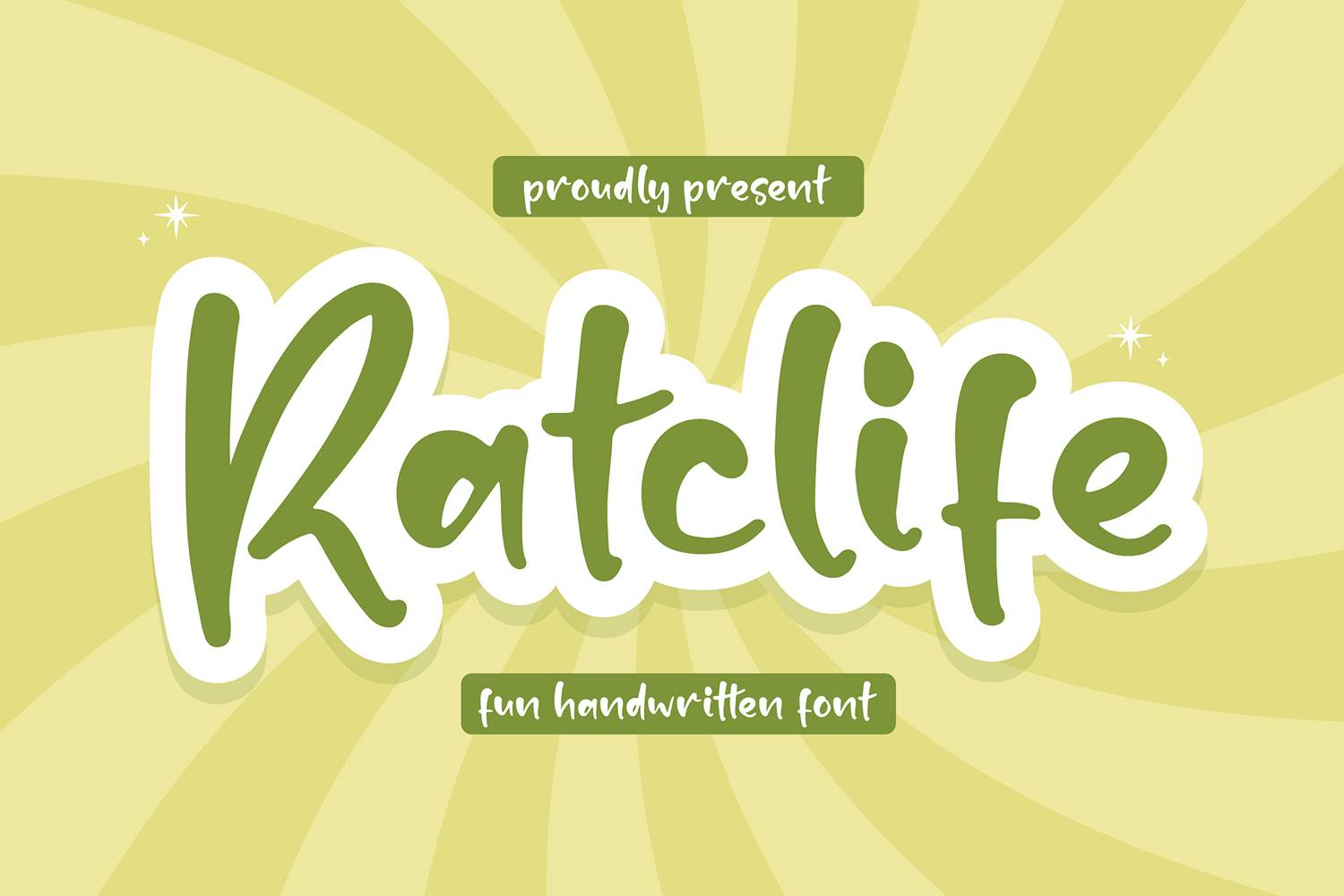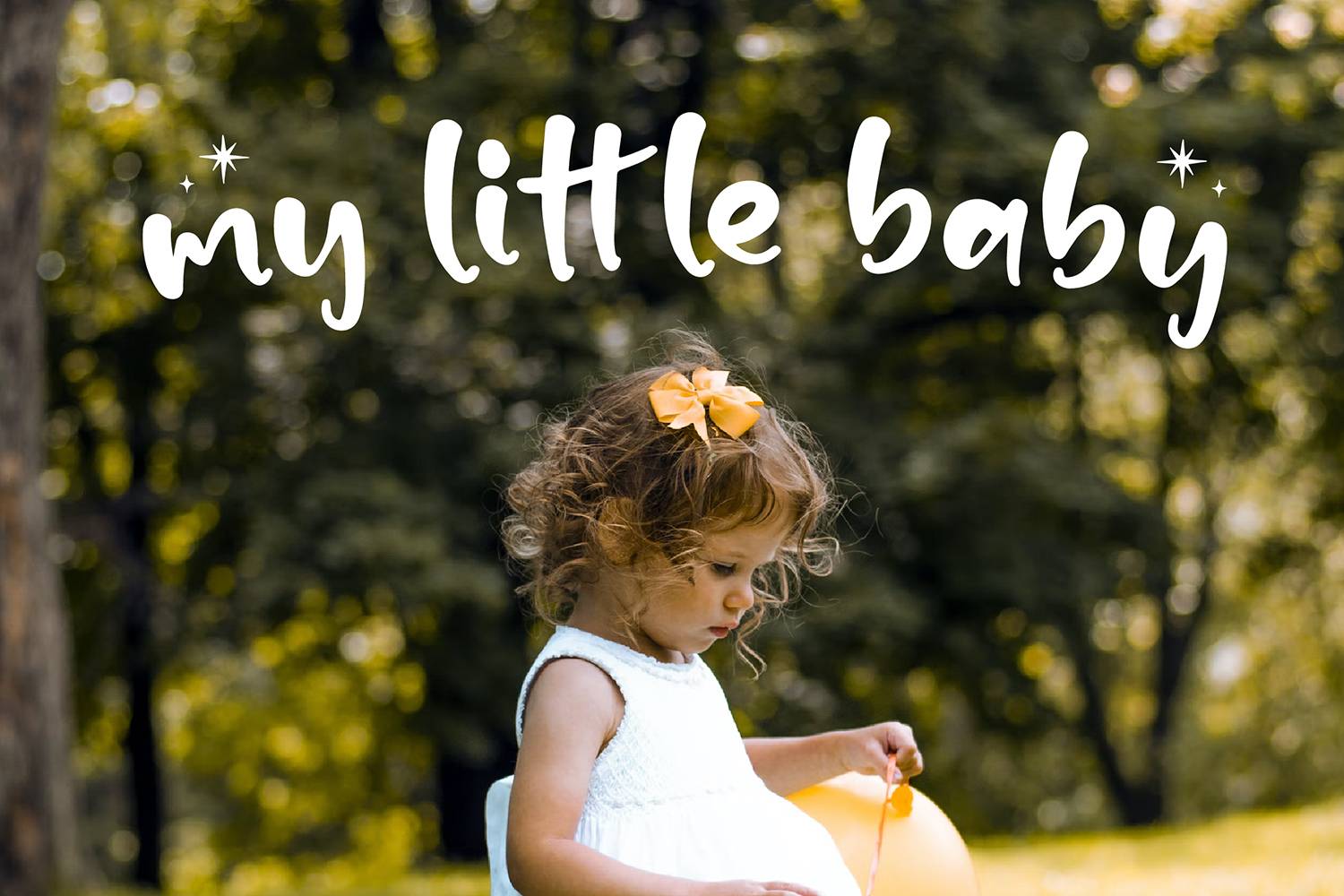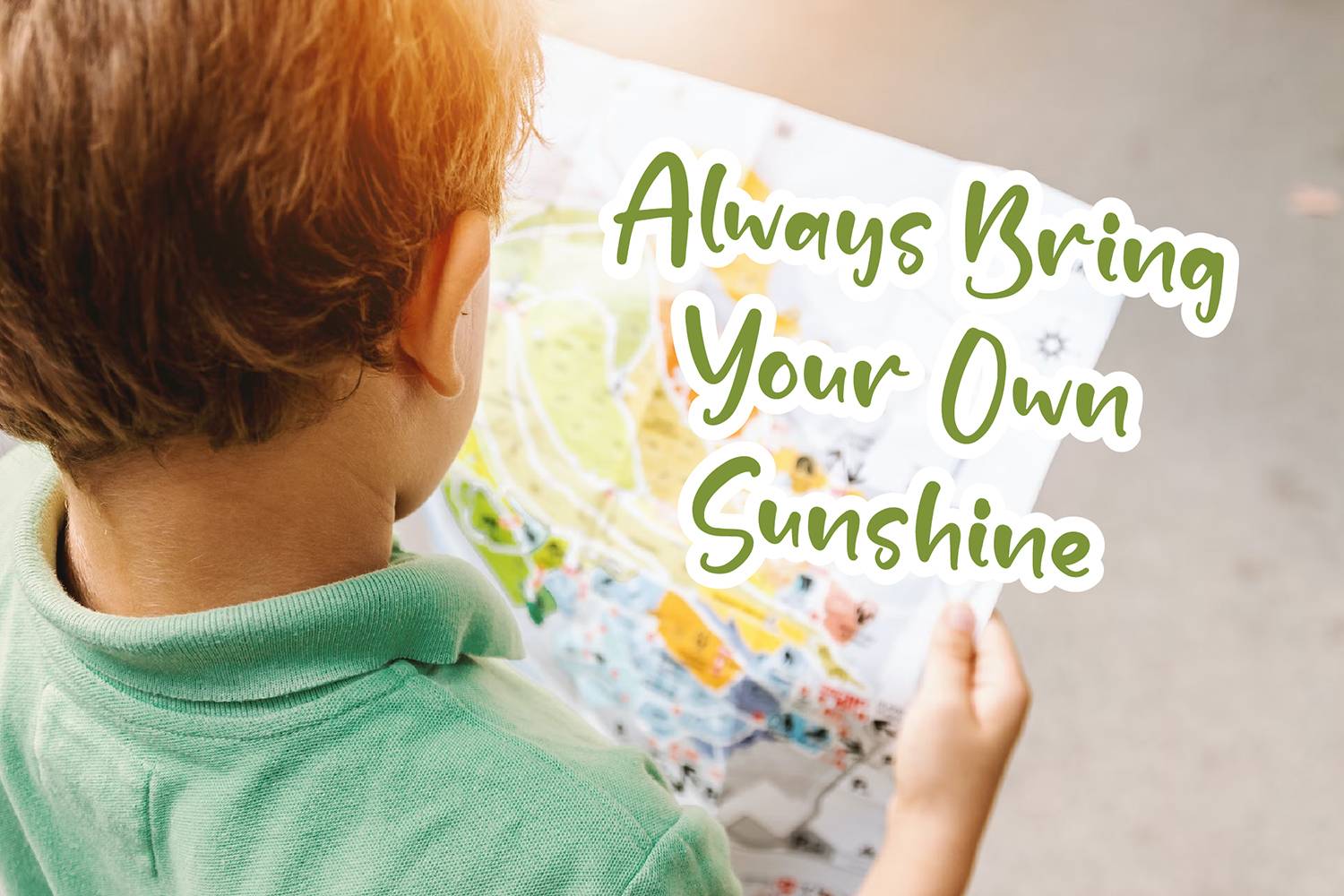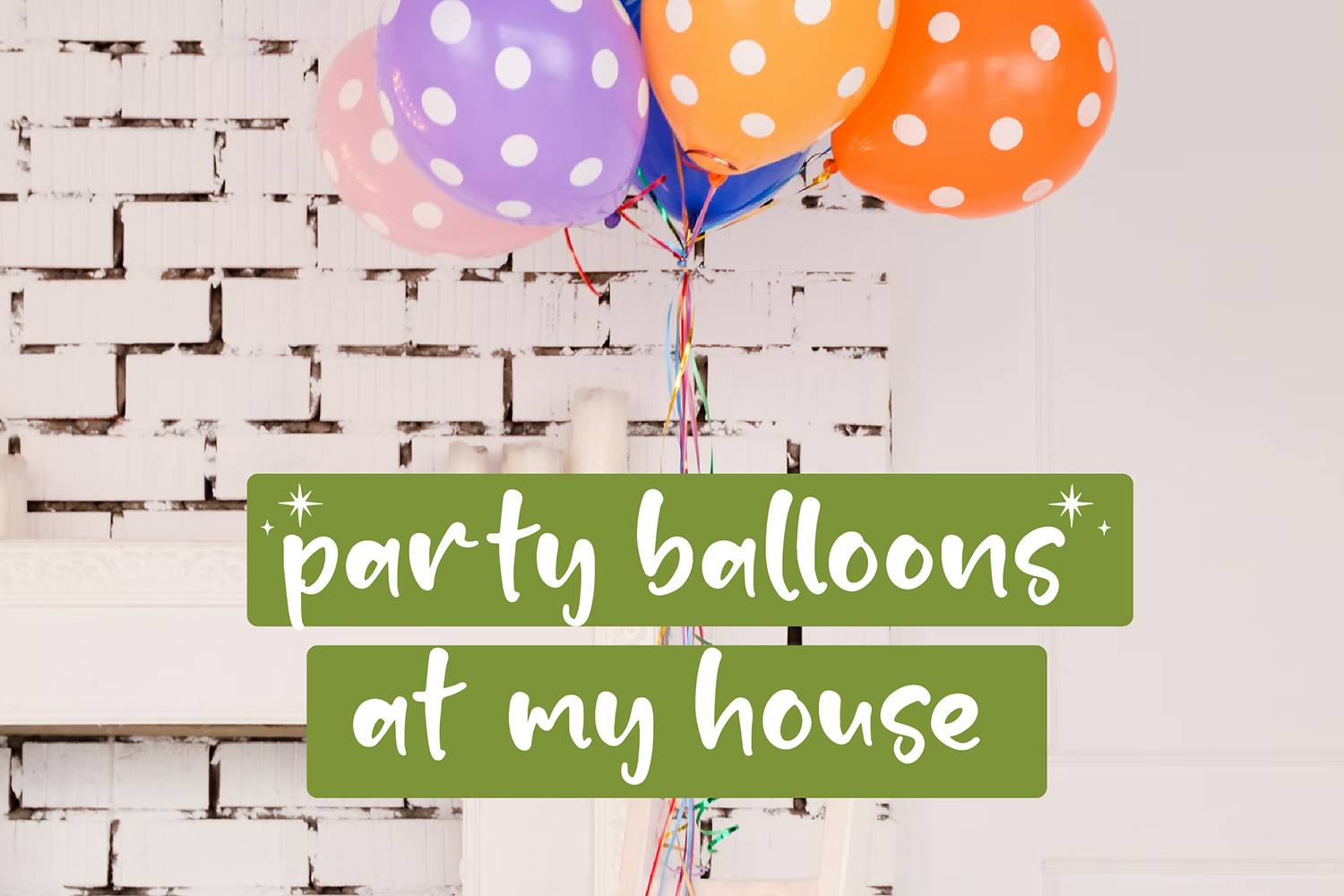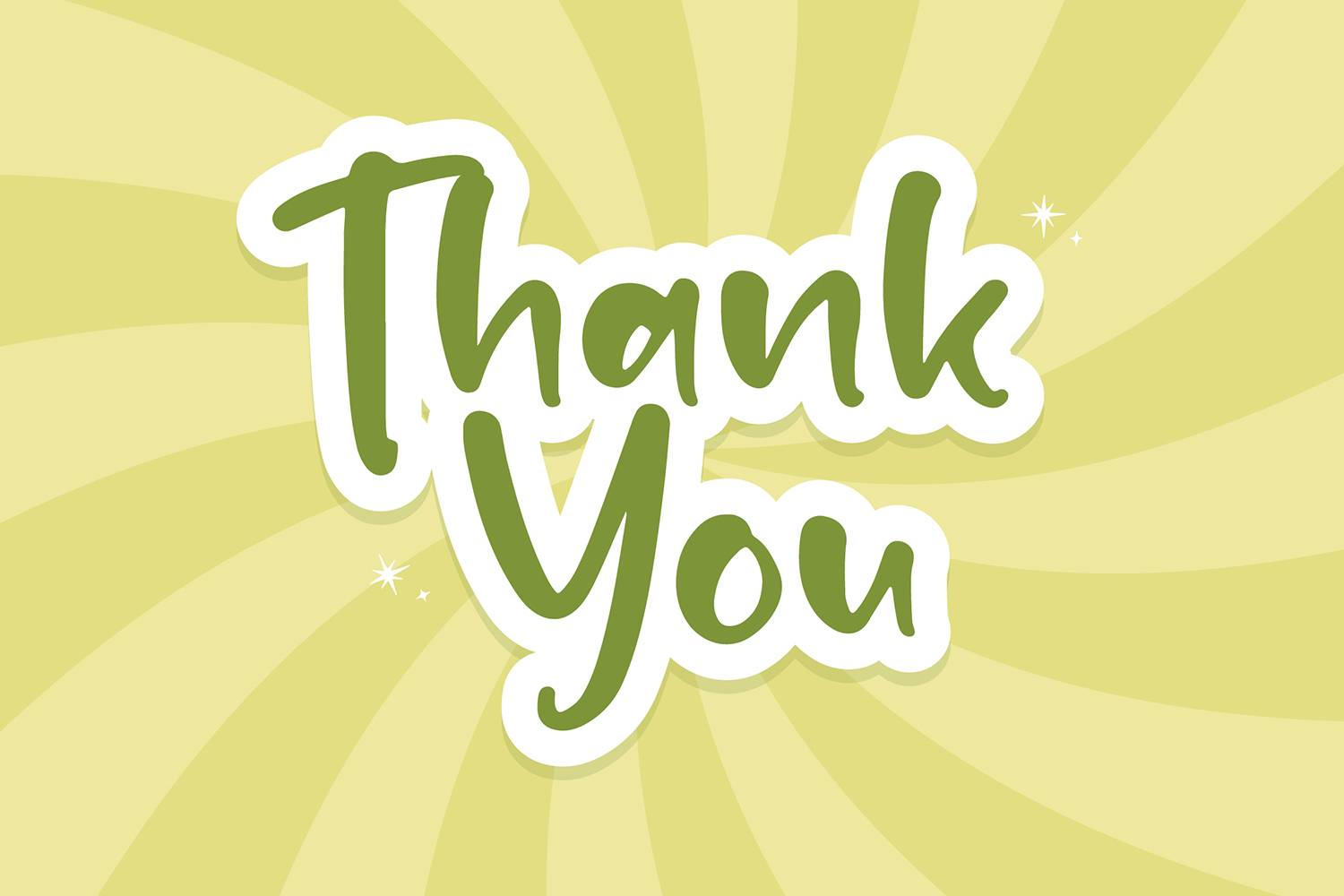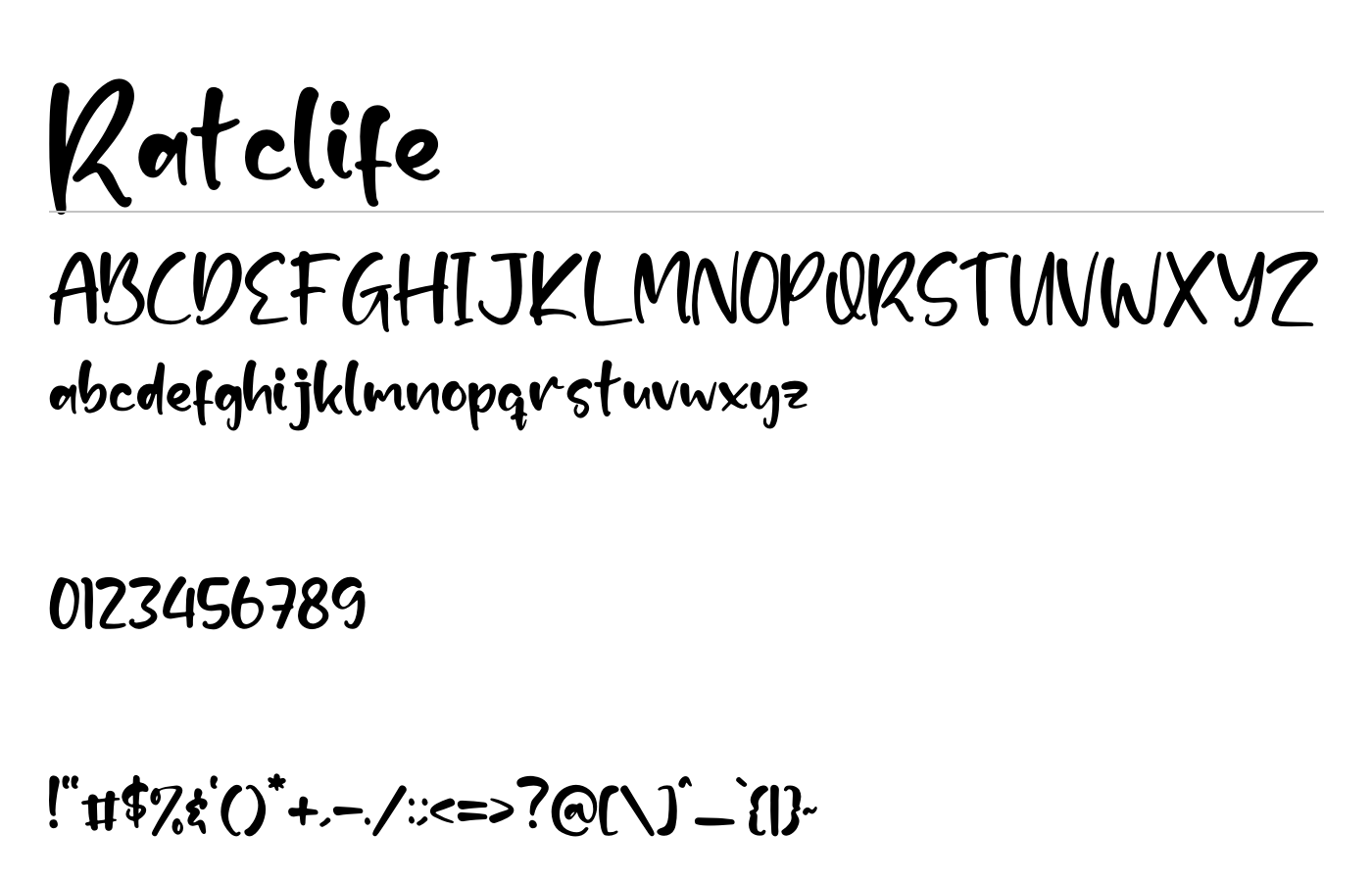
Ratclife is a playful and casual handwritten font featuring smooth, rounded strokes and a friendly, informal vibe. Its upright, slightly uneven letterforms and lively character make it perfect for personal branding, creative projects, and fun, approachable designs. This font works well in headlines, logos, and social media graphics where a warm, inviting feel is desired.
Ratclife Font